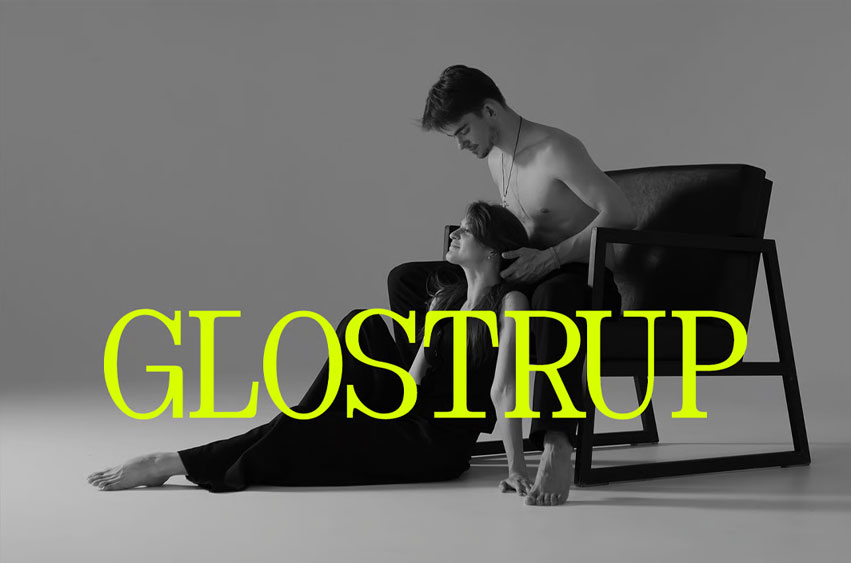
Glostrup Font
Glostrup Font Modern Serif Typeface. Glostrup Typeface was created with the vision of attracting the audience to your brand. The finest details of this typeface are methodically and mathematically created. Glostrup is designed to handle all the tasks of a corporate font, as well as for use in a variety of projects, including branding, logos, titles, headlines, posters, screens, displays, digital ads, and more.
Glostrup Font Preview